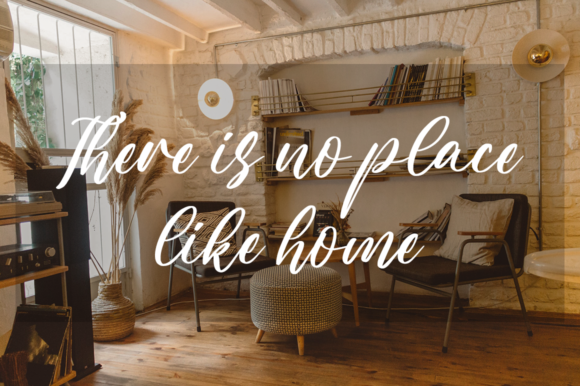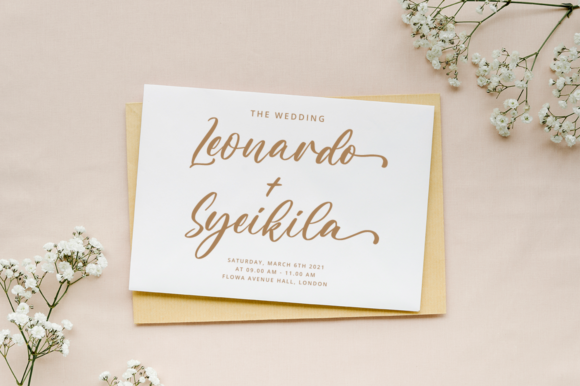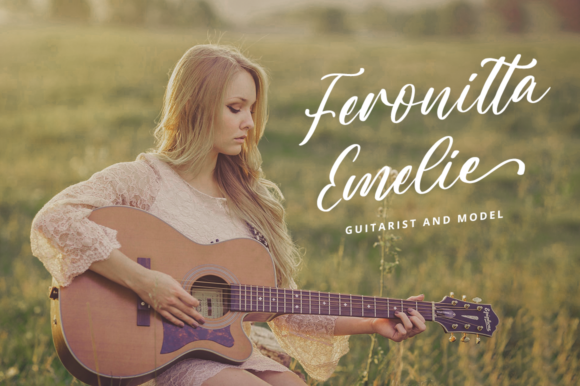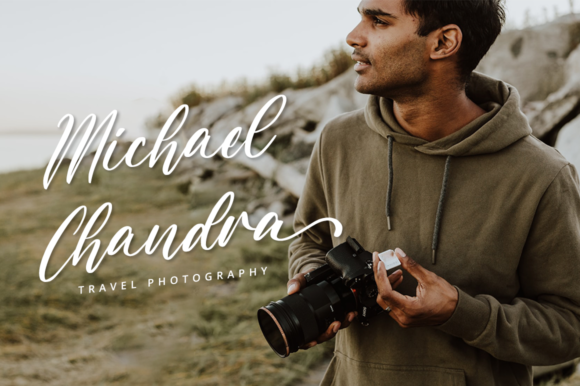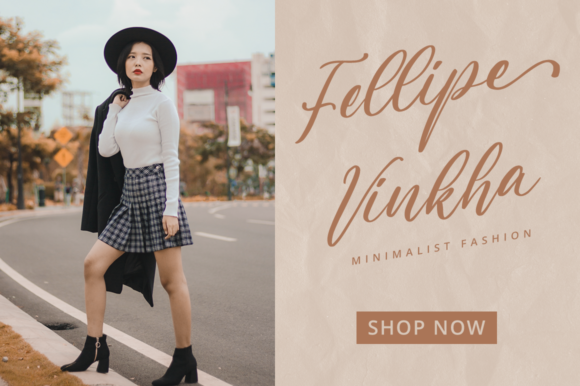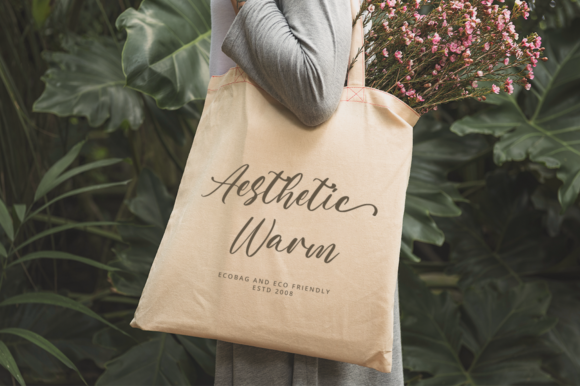
Aulietta Font: Elevate Your Designs with Elegance and Sophistication
In the world of typography, few fonts capture the essence of elegance and sophistication as beautifully as Aulietta. This delicate, elegant, and flowing handwritten font has been making waves among designers and crafters, and for good reason. With its authentic feel and versatility, Aulietta is the perfect choice for creating stunning wedding invitations, beautiful stationery art, eye-catching social media posts, and adorable greeting cards.
The Charm of Aulietta Font
Aulietta’s charm lies in its unique blend of classic and modern elements. The font’s flowing lines and delicate strokes evoke a sense of nostalgia, while its elegant and refined aesthetic makes it perfect for contemporary designs. Whether you’re looking to create a vintage-inspired wedding invitation or a modern social media post, Aulietta’s versatility ensures that it will complement your design perfectly.
Perfect for Wedding Invitations and Stationery
Wedding invitations and stationery are a great way to showcase Aulietta’s beauty. The font’s elegant and flowing lines make it perfect for creating gorgeous wedding invitations that set the tone for a sophisticated and memorable wedding celebration. Additionally, Aulietta’s delicate strokes and classic feel make it an excellent choice for creating beautiful stationery art, including letterheads, journals, and planners.
Eye-Catching Social Media Posts and Greeting Cards
Aulietta’s elegance and sophistication also make it an excellent choice for creating eye-catching social media posts and cute greeting cards. Whether you’re looking to promote a product, share a special moment, or simply send a heartfelt message, Aulietta’s flowing lines and delicate strokes are sure to capture your audience’s attention. The font’s versatility also makes it perfect for creating a wide range of greeting cards, from birthday and anniversary cards to thank-you notes and holiday greetings.
Why Designers and Crafters Love Aulietta
Designers and crafters love Aulietta for several reasons. Firstly, the font’s unique blend of classic and modern elements makes it a standout in any design. Secondly, Aulietta’s versatility ensures that it can be used for a wide range of projects, from wedding invitations and stationery to social media posts and greeting cards. Finally, the font’s elegant and sophisticated aesthetic makes it perfect for creating designs that are both beautiful and effective.
Tips for Using Aulietta Font
To get the most out of Aulietta, here are a few tips to keep in mind:
- Use Aulietta for headlines and titles to add a touch of elegance and sophistication to your designs.
- Pair Aulietta with other fonts to create a unique and visually appealing design.
- Use Aulietta for body text to create a beautiful and readable design.
In conclusion, Aulietta is a beautiful and versatile font that is perfect for designers and crafters looking to add a touch of elegance and sophistication to their designs. With its unique blend of classic and modern elements, flowing lines, and delicate strokes, Aulietta is sure to inspire your creativity and help you create stunning designs that capture your audience’s attention.
Whether you’re looking to create gorgeous wedding invitations, beautiful stationery art, eye-catching social media posts, or cute greeting cards, Aulietta is the perfect choice. So why not give Aulietta a try and see for yourself why it’s quickly becoming a favorite among designers and crafters?